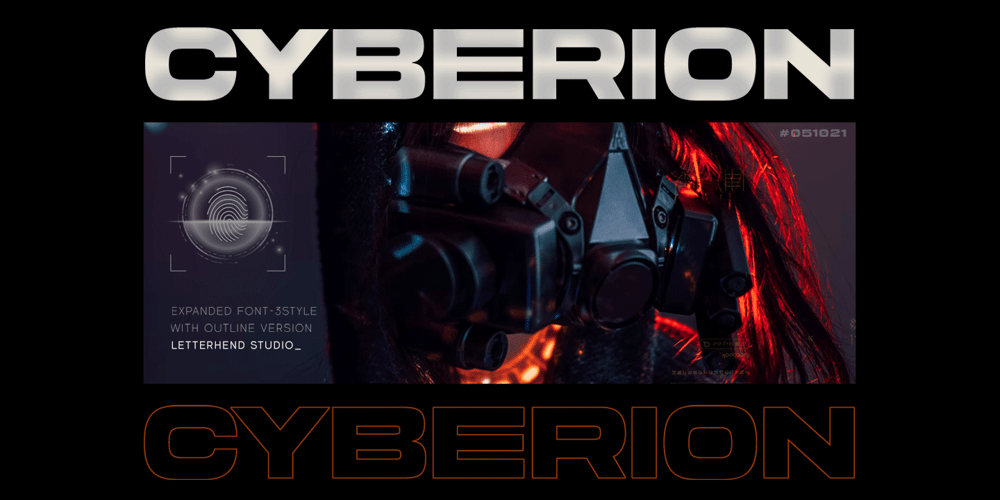
Cyberion Font Family was designed by Hendry Juanda and published by Letterhend. Cyberion contains 1 styles and family package options. Cyberion is a modern futuristic sans serif font. Very suitable to be used for automotive, modern and tech theme. The style make this font looks great and standout for tittle, headline, logo, etc. Perfectly to be applied to the other various formal forms such as invitations, labels, logos, magazines, books, greeting / wedding cards, packaging, fashion, make up, stationery, novels, labels or any type of advertising purpose.Features : uppercase & lowercase outline version numbers and punctuation multilingual alternates & ligatures PUA encoded We highly recommend using a program that supports OpenType features and Glyphs panels like many of Adobe apps and Corel Draw, so you can see and access all Glyph variations. How to access opentype feature : letterhend.com/tutorials/using-opentype-feature-in-any-software/